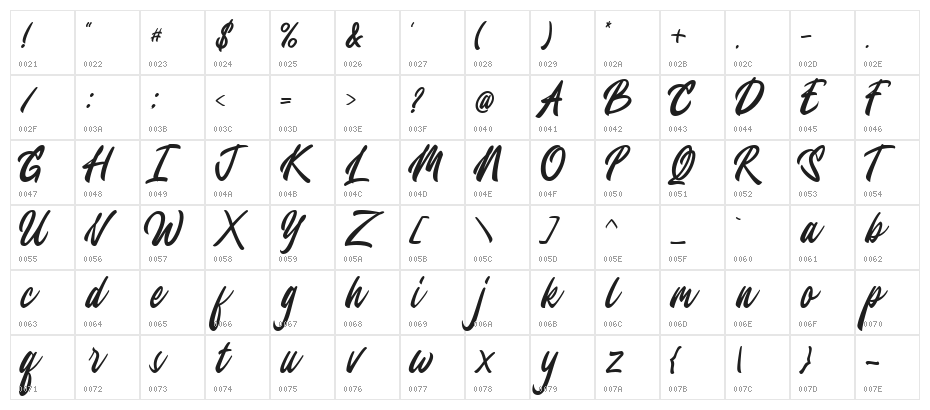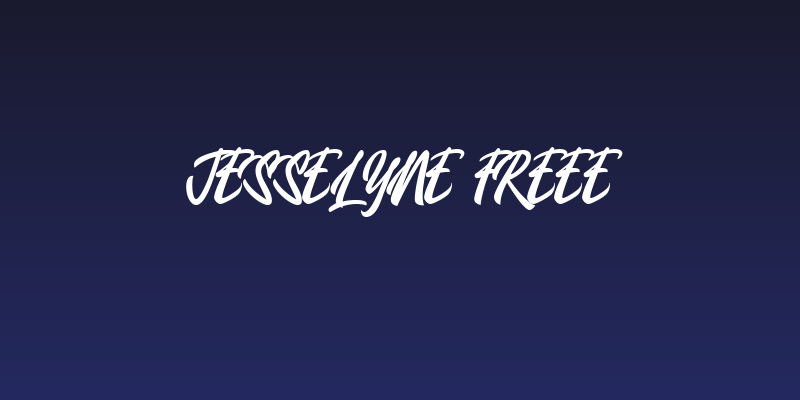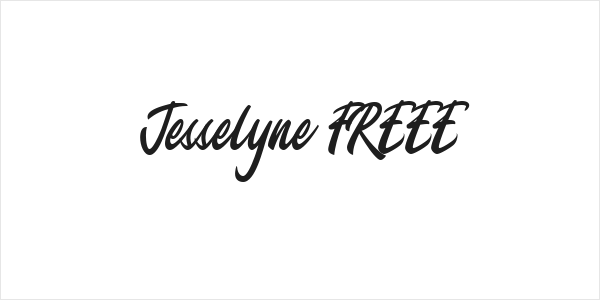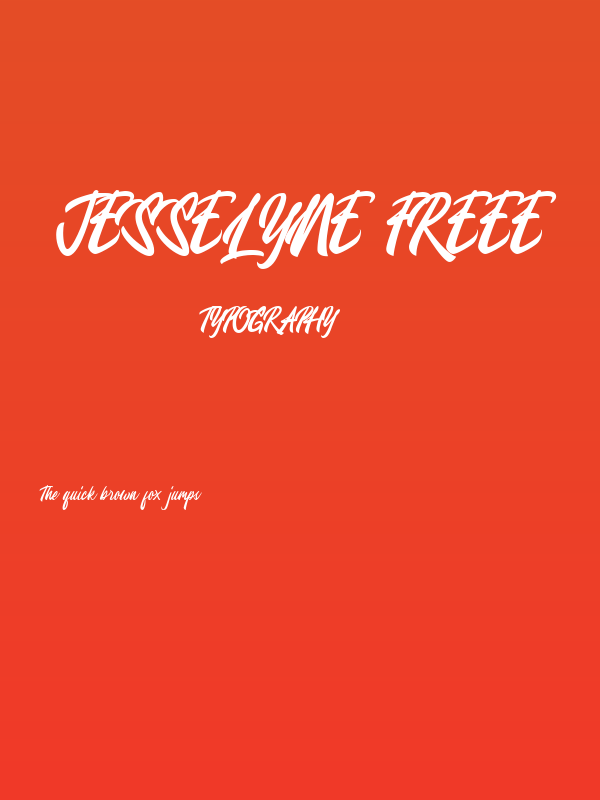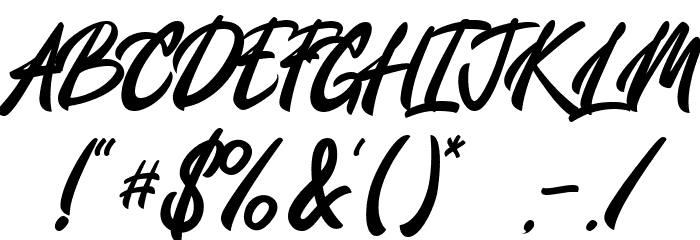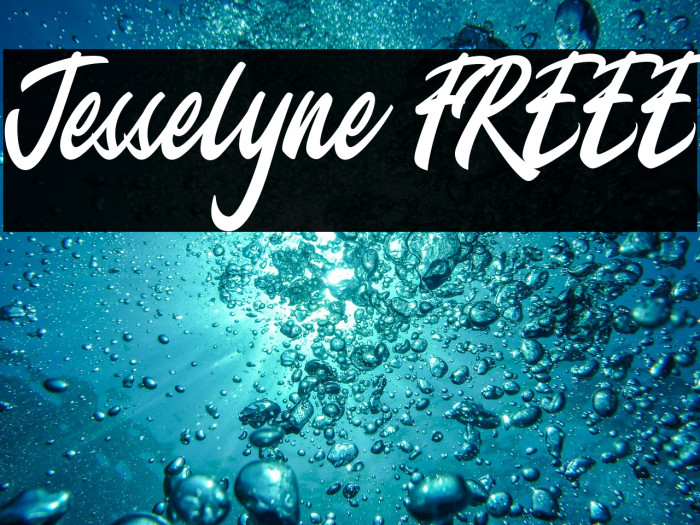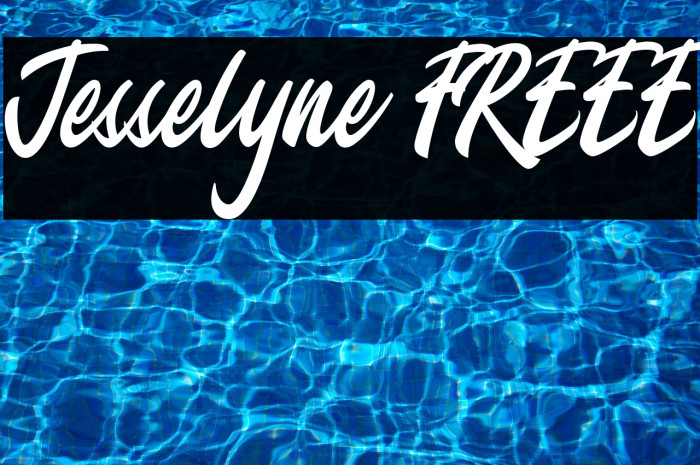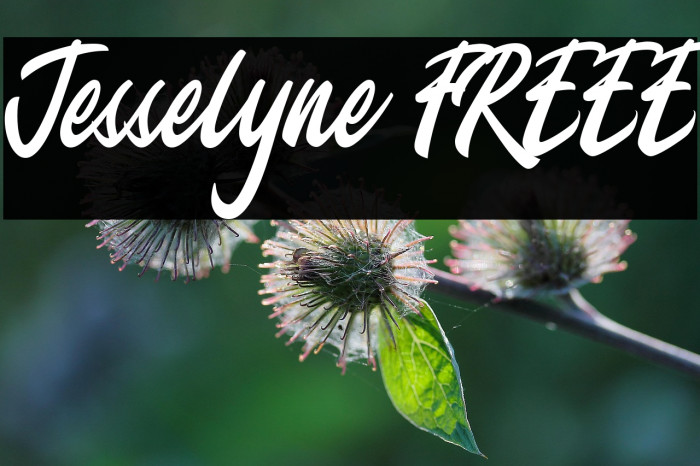
Jesselyne FREEE Font
Jesselyne FREEE Description
This font exudes a dynamic and energetic vibe with its bold, cursive style. The letters are interconnected, mimicking a natural handwriting flow, which adds a personal touch to any text. The strokes are thick and consistent, providing a strong visual impact. The uppercase and lowercase letters maintain a cohesive style, while the numbers and special characters are seamlessly integrated, ensuring versatility across various applications. Its bold nature makes it stand out, perfect for grabbing attention.
| Proposed Projects | Ideal for branding, logos, invitations, and any project requiring a personal, energetic touch. |